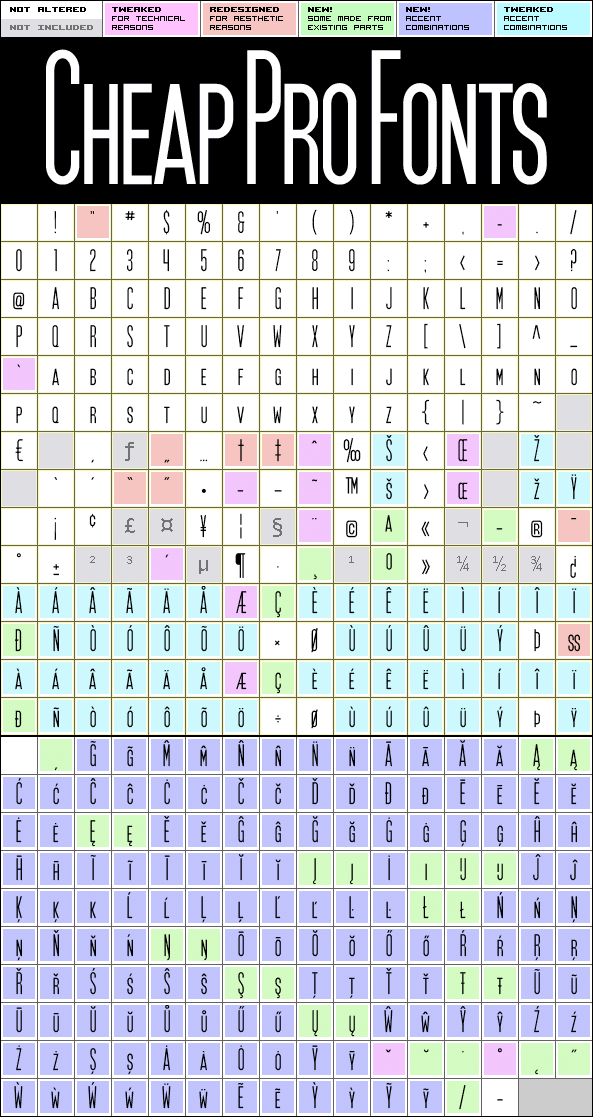
SF Movie Poster Pro
SF Movie Poster Pro by Derek Vogelpohl
Derek Vogelpohl
363 glyphs!
(201 in original)
546 class kernpairs
= 10420 kerning pairs
(161 in original)
The name of this font says it all, really: this is a font in the style of the credit lines of movie posters :)
Especially made to cram as much text into the smallest possible space, and every (uppercase) letter is available in two sizes...
Derek Vogelpohl says: "Have you ever wanted to see your name in credits? Well, this is the font for you. Show all your friends just how cool your name looks in credits!"
SF Movie Poster Pro is a professionally reworked font that contains an extended character set for setting text in 65 languages requiring more than the basic A-Z!